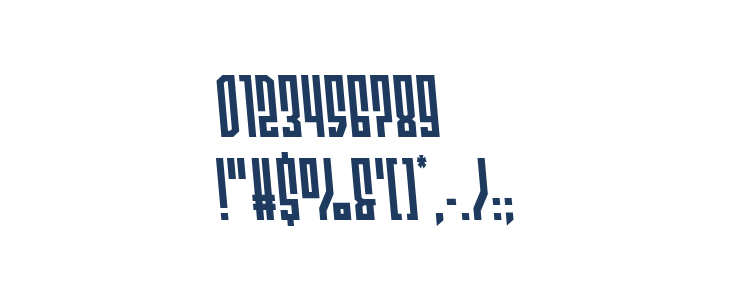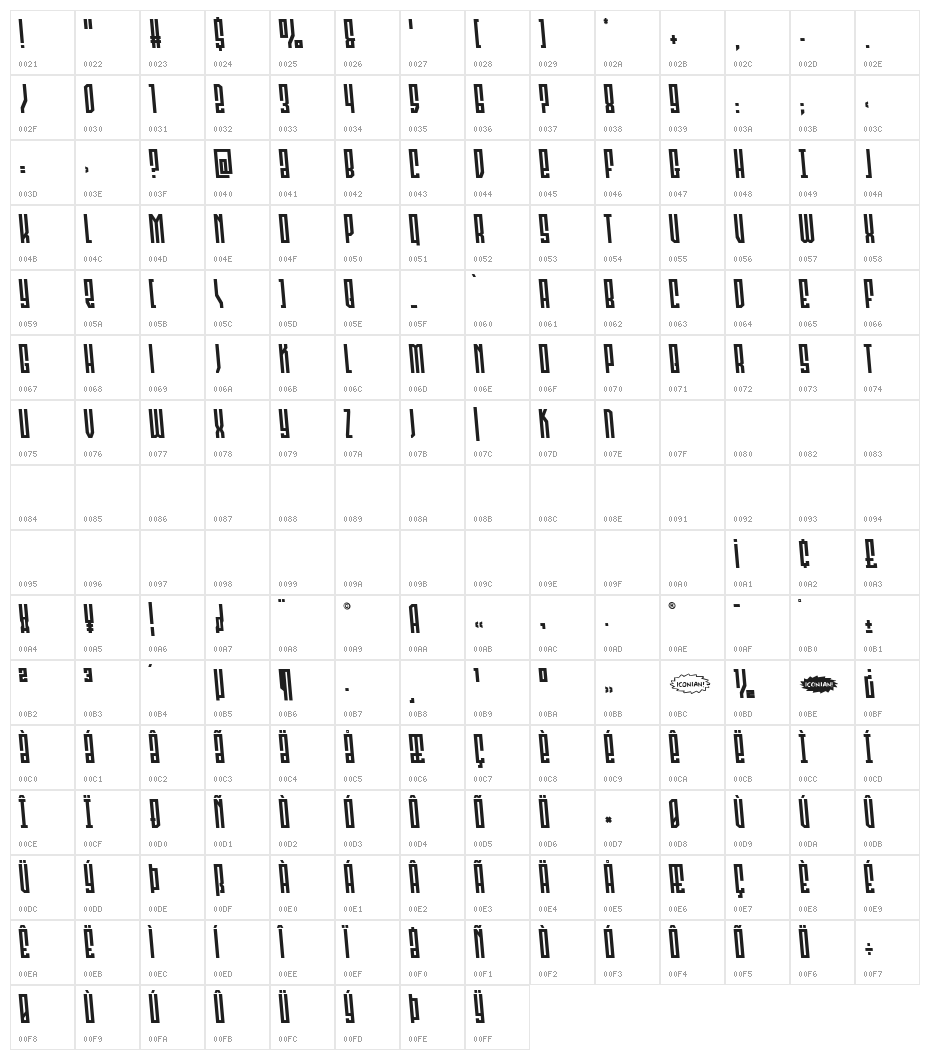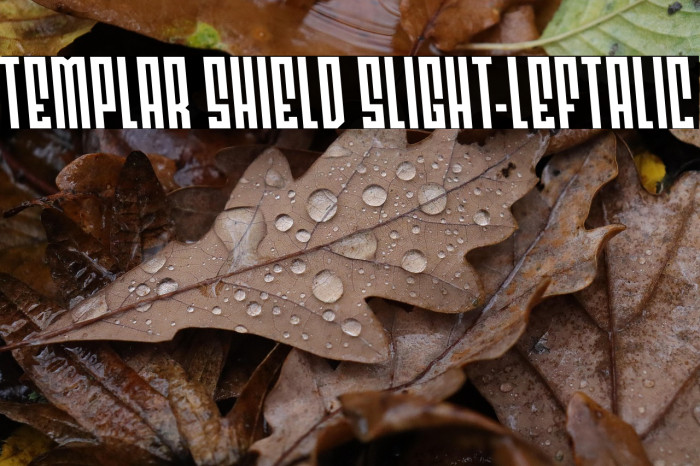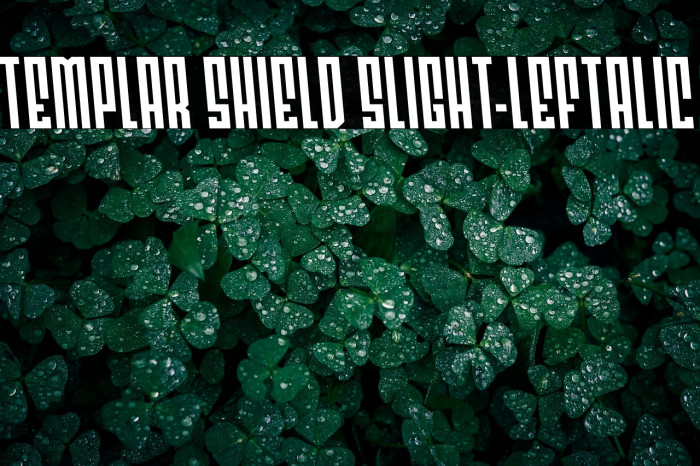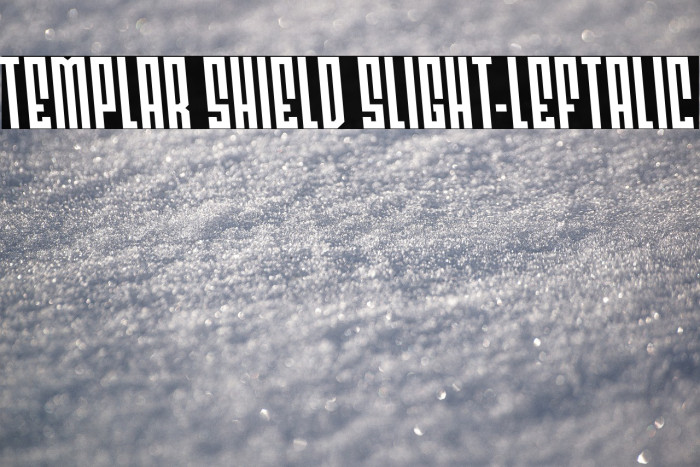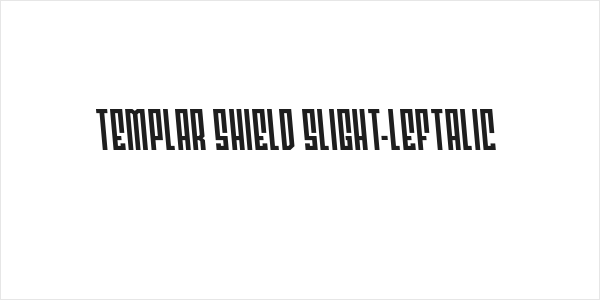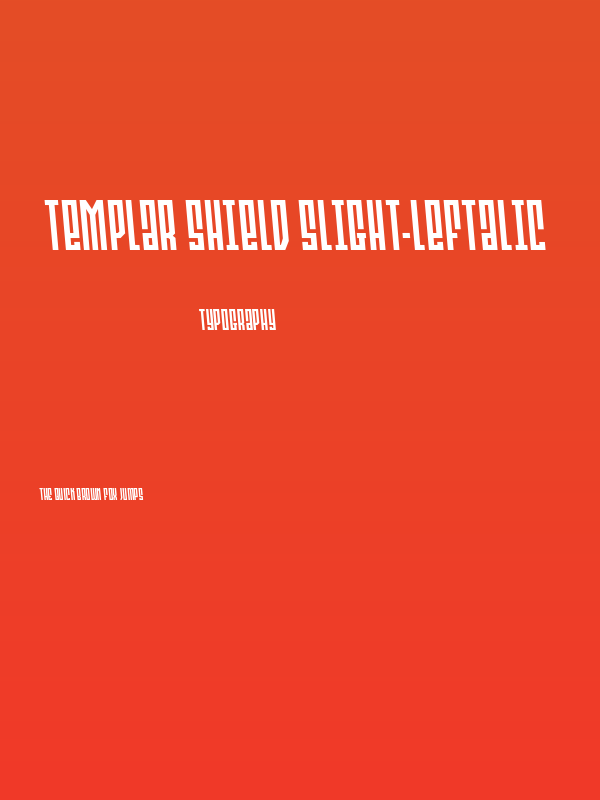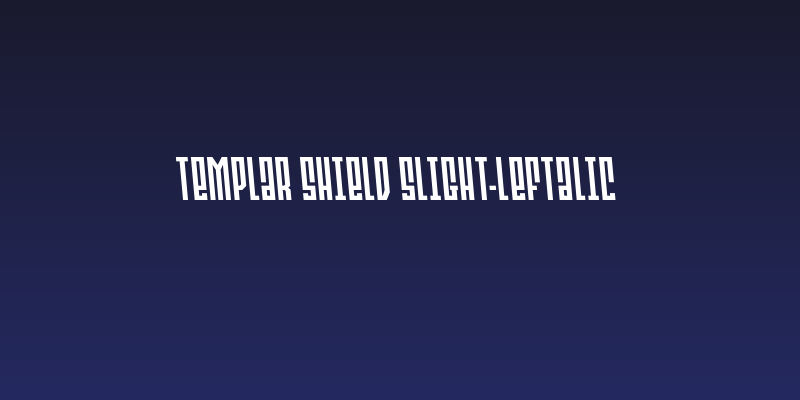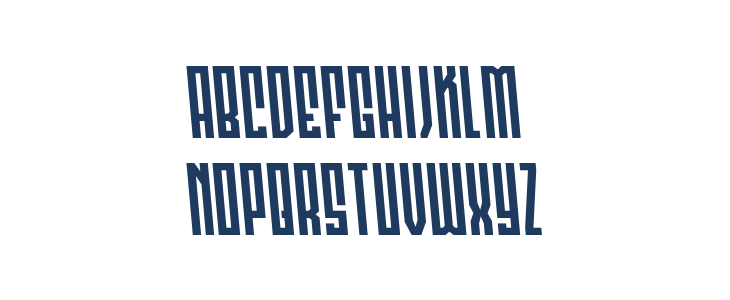
Templar Shield Slight-Leftalic Font
Templar Shield Slight-Leftalic Description
This font features a bold, angular design with a distinct medieval flair. The characters are tall and narrow, with sharp edges and a slight leftward slant, giving them a dynamic and aggressive appearance. The uppercase and lowercase letters maintain a consistent style, emphasizing vertical lines and pointed serifs. Numbers and special characters follow the same aesthetic, ensuring uniformity across all glyphs. The overall look is reminiscent of ancient scripts, making it suitable for projects that require a historical or fantasy theme. The font's unique style makes it stand out, perfect for creating eye-catching titles or logos.
| Overall Style | Medieval, Decorative |
| Proposed Projects | Ideal for fantasy book covers, historical event posters, or themed video game graphics. |